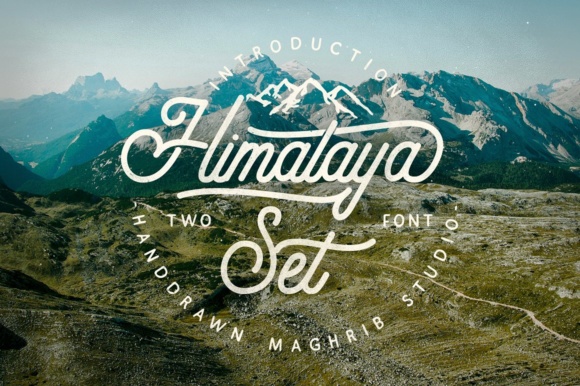
Venture into a world of timeless elegance with the Himalaya Set Font, a meticulously crafted fusion of nostalgia and modernity. Step back in time as the flowing script letters, reminiscent of vintage love letters, entwine with the rugged charm of a sans serif font, capturing the essence of rugged charm.
Indulge in a journey through the Himalayas, where towering peaks meet whispering winds, and ancient wisdom echoes in every line. Let your imagination soar as you embrace the beauty of imperfection, the raw edges of these fonts adding a touch of authenticity to your creative endeavors.
Unleash your inner artist and immerse yourself in a symphony of creativity, where the Himalayan Set Font becomes your trusted companion. Whether you're a seasoned designer or just starting your artistic journey, this font duo will elevate your projects to new heights, adding a touch of sophistication and intrigue.
With the Himalaya Set Font by your side, words dance off the page, captivating your audience with their timeless allure. Experience the joy of heartfelt communication, as your messages resonate with a touch of nostalgia and a hint of modern flair.